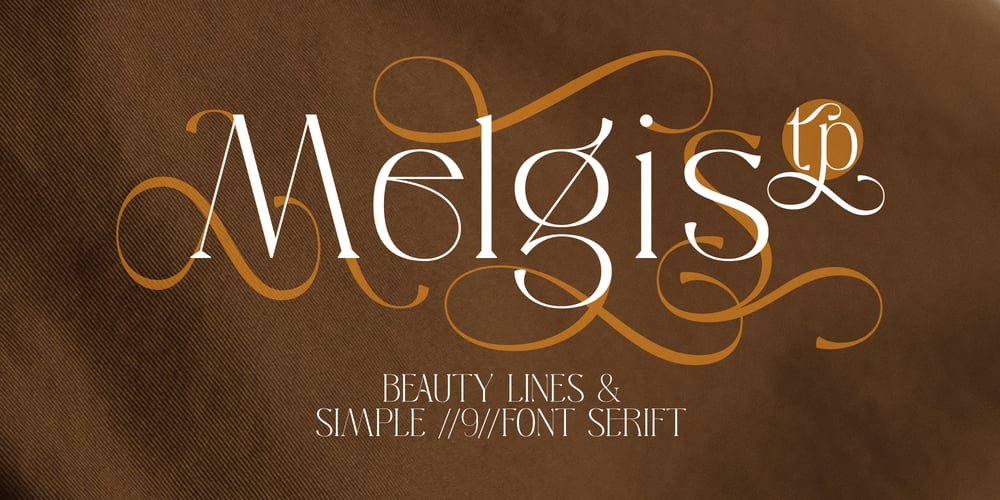
Melgis Tp Font Family was designed by Ekayasa and published by Authentype. Melgis Tp contains 9 styles and family package options. Melgis Tp with beautiful curved lines, it becomes a complete beauty in one unit. Melgis Tp is a 9 weight font family ideal for beauty products, logos, magazines and posters.This font is ideal for beauty brand design with swash glyph suitable for your beautiful elegant design concept.Melgis Tp – Beauty lines & simple sans serif font style for Poster, Magazine, Beauty brand design.PLEASE NOTE Most of the fonts require advanced graphic software that supports Open Type Features like Adobe (Illustrator, InDesign, Photoshop), Affinity (Photo, Designer, Publisher), Corel Draw, or similar software.Image used: All photographs/pictures/logo/vector used in the preview are not included, they are intended for illustration purposes only.Thank you